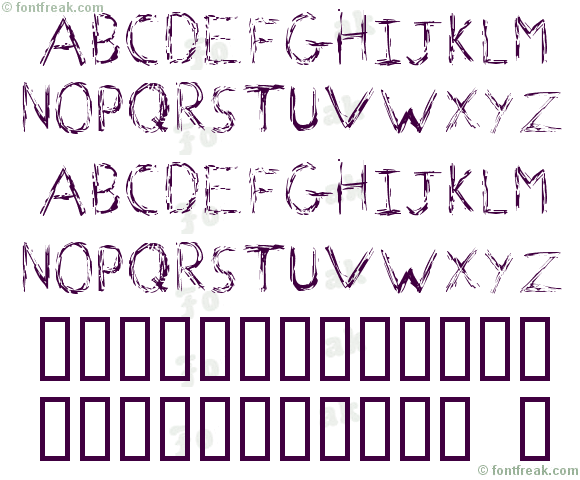
Faraday
The Faraday font, designed by Divide By Zero, falls into the decorative type category, making it an eye-catching choice for various creative projects. This unique typeface showcases a distinct visual style characterized by irregular, angular strokes that create an energetic and playful aesthetic. The varying stroke weight adds depth and interest, while the open spacing between letters ensures readability, even in more complex designs. Its artistic flair is perfect for those looking to inject personality into their work.
Faraday is versatile, making it suitable for a range of applications. It excels in creating standout movie posters, where its dynamic style can draw attention and evoke emotion. Additionally, it’s an excellent choice for eye-catching restaurant menus that aim to create a memorable dining experience. For graphic designers working on branding projects, the Faraday font can elevate logos and promotional materials, providing a unique identity. Furthermore, it can be used in crafting vibrant event invitations, where its playful character can set the tone for celebrations.
What truly sets the Faraday font apart is its ability to blend artistic expression with functionality. This font offers a unique opportunity to engage audiences and leave a lasting impression, making it a valuable asset in any designer's toolkit. For those interested, a Faraday font free download is readily available, allowing you to explore its full potential in your creative endeavors.